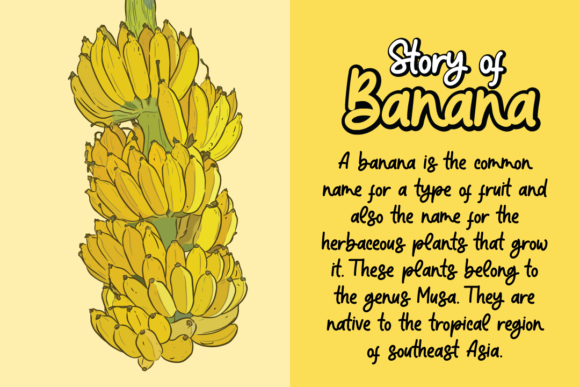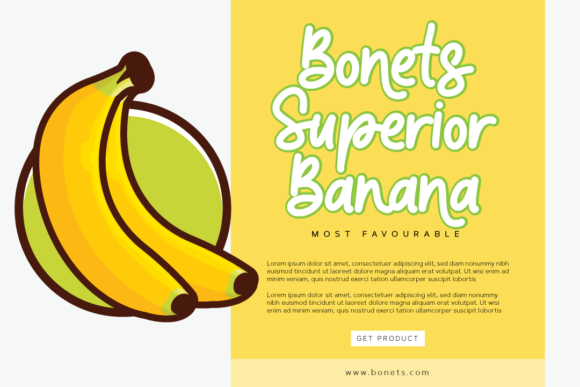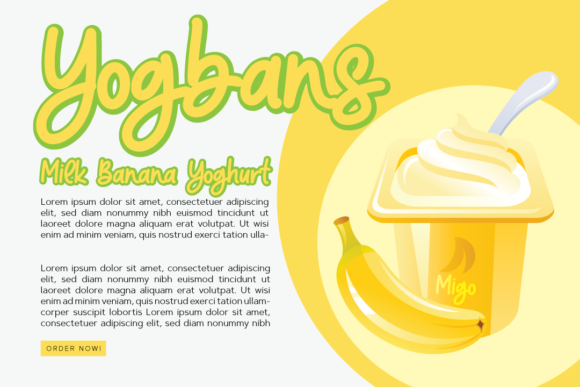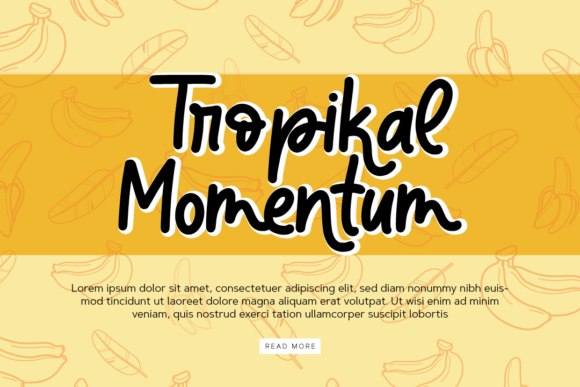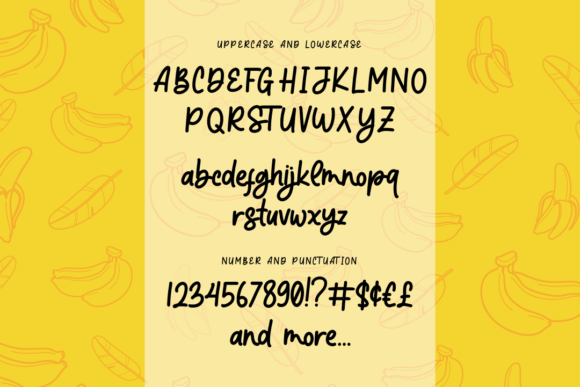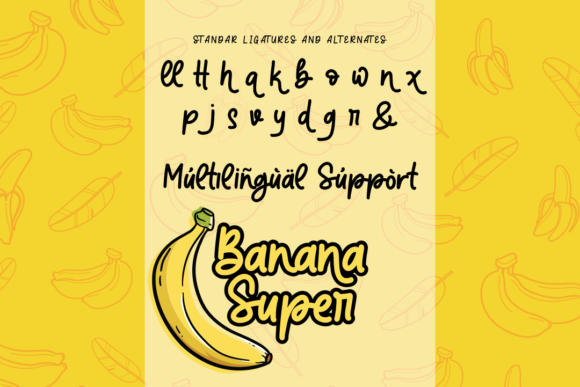
The Perfect Pick for Your Next Design Project
Who hasn’t been there – staring blankly at a blank page, trying to come up with the perfect font to match your creative vision? The struggle is real, but fear not, designers! I’m here to introduce you to a game-changing addition to your font arsenal: Banana Super Font.
Banana Super is a sweet and friendly handwritten font that’s bursting with personality. Its natural and unique style makes it incredibly fitting to a large pool of designs, from whimsical greeting cards to charming social media graphics. With its versatility and charm, Banana Super Font is a valuable asset for any designer looking to add a touch of warmth and character to their work.
Banana Super Font Key Features
- Unique Characteristics: Banana Super Font features an exaggerated, playful design with bold lines and rounded shapes, making it perfect for creating eye-catching headlines and titles.
- Style Options: Banana Super Font comes in three styles: Regular, Bold, and Outline, allowing users to choose the perfect look for their design.
Designer Review: Banana Super Font
Overall, I’d say the Banana Super Font has some interesting qualities that might appeal to certain designers, but it also has some limitations that might hold it back.
- ✨ The font’s playful, cursive feel is perfect for creating a fun and whimsical atmosphere in branding or advertising.
- ✨ The font’s bold, chunky style makes it easy to read at larger font sizes, making it great for headings and titles.
- ✨ The font’s unique character set includes some fun and quirky special characters, like banana-shaped symbols and emoticons.
Limitsations:
- ⚠️ The font’s design can feel a bit over-the-top or childish, which might not be suitable for more professional or corporate branding.
- ⚠️ The font’s cursive style can make it difficult to read at smaller font sizes, which might be a problem for body text or other text-heavy applications.
- ⚠️ The font’s unique character set can be a bit distracting or confusing, especially in longer blocks of text.
Overall, I think the Banana Super Font is a fun and creative choice for designers who want to add a bit of personality to their work. However, it might not be the best choice for more serious or professional applications.
Tips for Getting the Most Out of Banana Super Font
Experiment with different font sizes and styles to create visual interest in your design. Use the Banana Super Font in combination with other fonts to create a unique and eye-catching visual effect.
The Banana Super Font is ideal for use in logos, headings, and titles where a bold and playful font is needed. It’s also great for use in social media graphics, posters, and other marketing materials where a fun and eye-catching font is required.